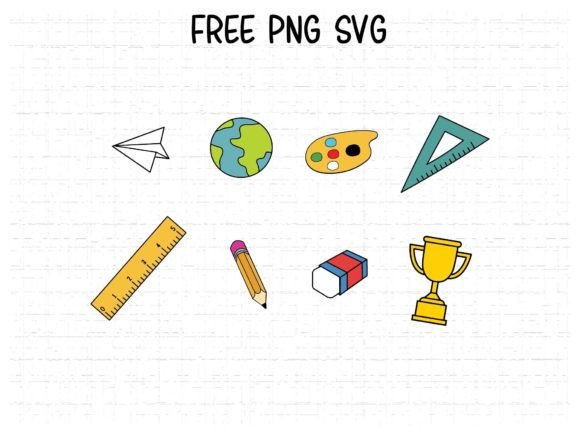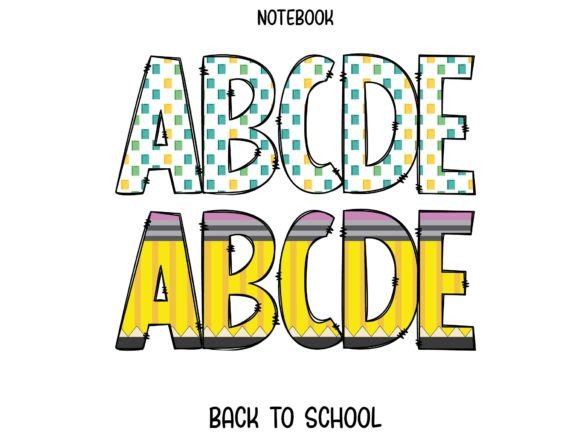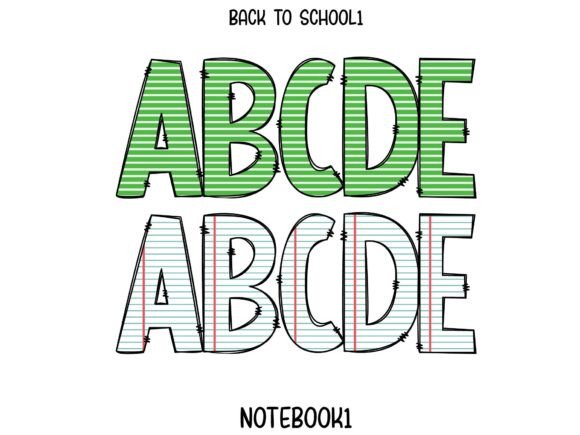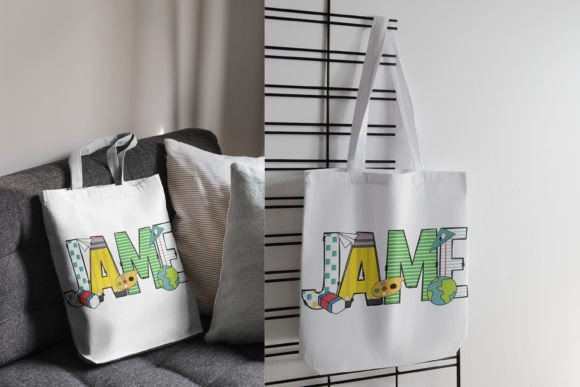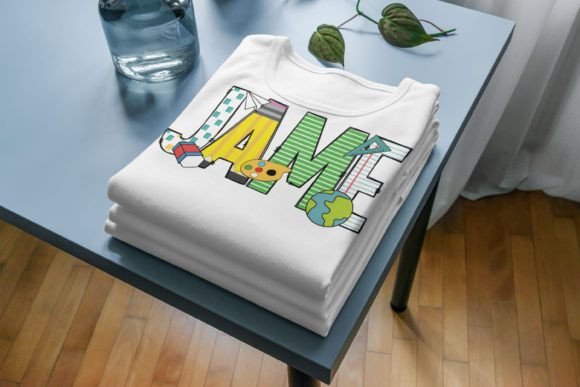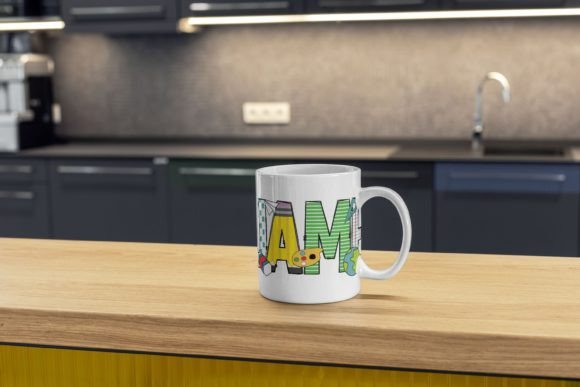
Get Ready for a Fun and Playful Design Season
Do you remember the excitement of rummaging through your school supplies every year, eagerly awaiting the new school year to begin? The thrill of picking out a fresh notebook, a set of colorful pens, and a shiny new pencil case is something that never gets old. As designers, we often look for ways to capture that same sense of excitement and playfulness in our designs, and that’s where the Back to School Font comes in.
This adorable font is designed to bring a smile to the faces of kids and adults alike, making it the perfect choice for any children’s activity or school project. Whether you’re creating a DIY craft, a party invitation, or a fun educational resource, the Back to School Font is sure to add a touch of authenticity and whimsy to your designs.
Key Features of “Back to School Font”
- Font Styles: A collection of 7 unique font styles to suit various school and educational needs, including a handwritten, script, and sans-serif font.
- Unique Characteristics: The font features a playful and youthful design, perfect for creating a fun and engaging atmosphere in educational settings.
Back to School Font Review
I recently had the chance to work with the “Back to School Font” and I must say, it’s a mixed bag. On the one hand, there are some aspects that shine ✨.
- Fun and playful vibe: The font is perfect for creating a cheerful atmosphere, especially for educational or children-related projects.
- Good for headlines: The font is clear and easy to read, making it a great choice for titles and headings.
- Highly customizable: The font comes with a wide range of variations, allowing you to adjust it to your desired style.
However, there are some limitations ⚠️:
- Limited legibility at smaller sizes: While the font looks great at larger sizes, it can become difficult to read at smaller sizes.
- Not suitable for body text: Due to its playful nature, the font can be distracting when used for large blocks of text.
Overall, I’d say the “Back to School Font” is a great choice for specific projects, such as educational materials or children’s products. However, it’s not a good fit for more formal or serious projects. With some careful consideration of its limitations, it can be a fun and effective addition to your design toolkit.
Getting the Most Out of the Back to School Font
Use the Back to School Font in conjunction with other playful and colorful elements to create a fun and engaging back to school theme.
Experiment with different font sizes and styles to add visual interest to your design.
Consider using the font in combination with images or graphics to create a cohesive and eye-catching design.
The Back to School Font is perfect for creating back to school themed designs, such as:
Invitations and party decorations
Back to school signs and banners
Social media posts and graphics
Printable art and worksheets